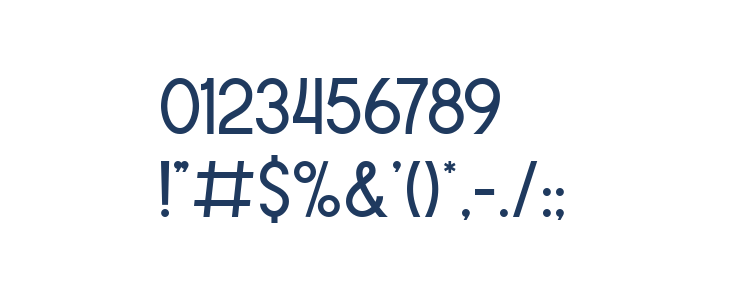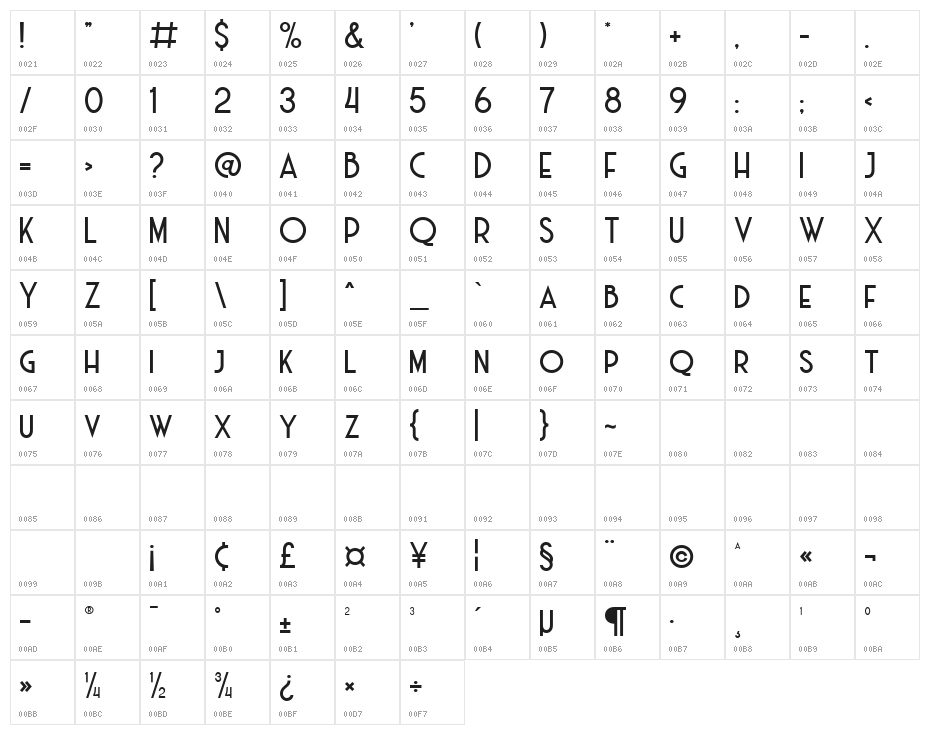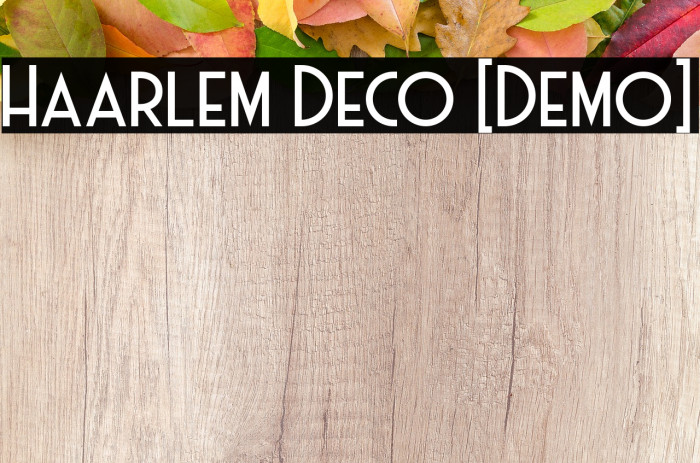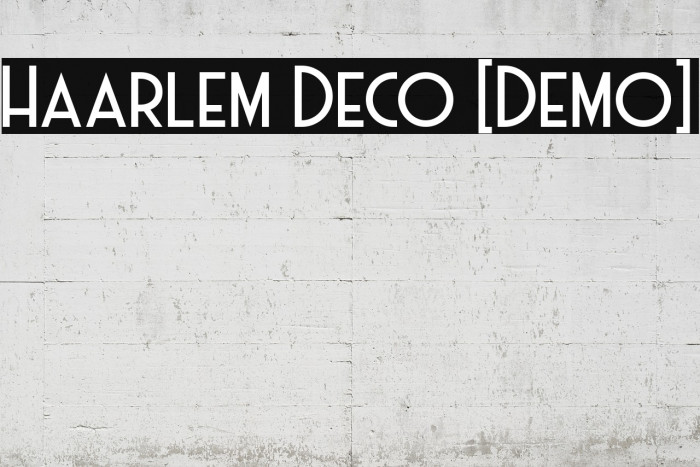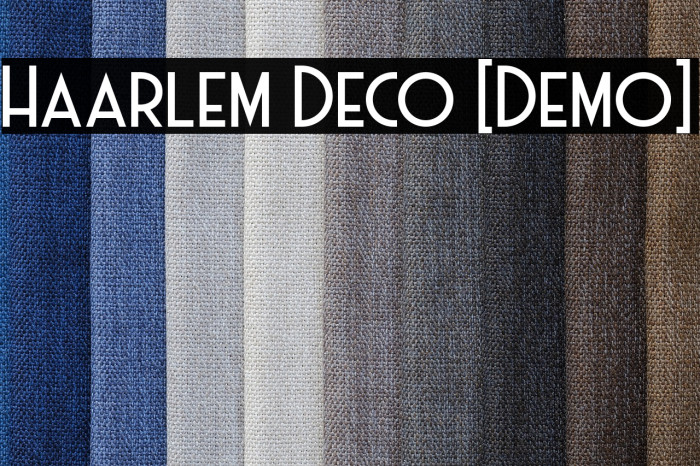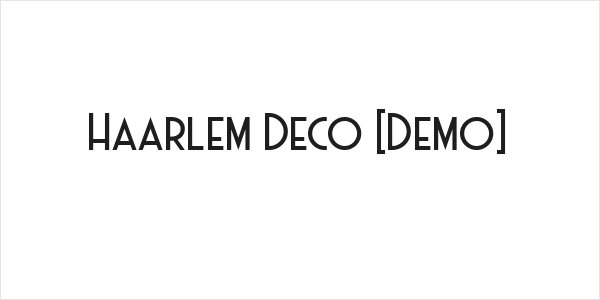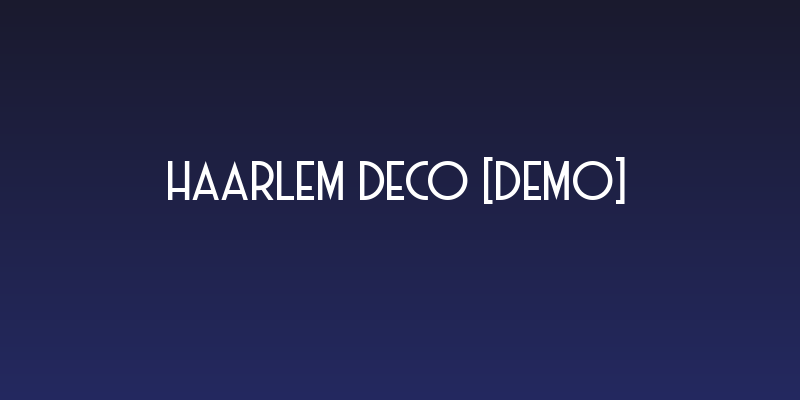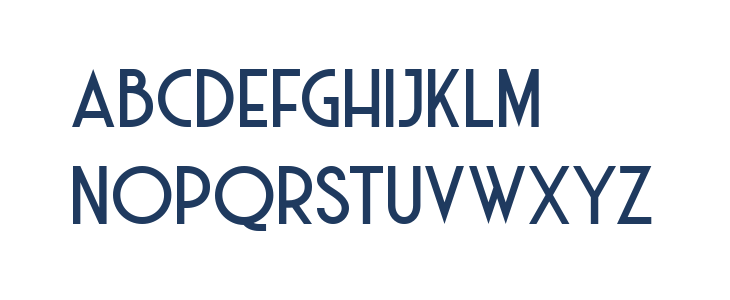
Haarlem Deco [Demo] Font
Haarlem Deco [Demo] Description
This font embodies a sleek and sophisticated Art Deco style, characterized by its geometric shapes and clean lines. The uppercase letters are bold and striking, with a distinct angularity that gives them a modern edge. The lowercase letters maintain a consistent style, offering a harmonious balance between elegance and readability. The numerals are designed with the same attention to detail, ensuring clarity and uniformity. Special characters are crafted to complement the overall aesthetic, making this font versatile for various design needs. Its timeless appeal makes it suitable for projects that require a touch of classic sophistication.